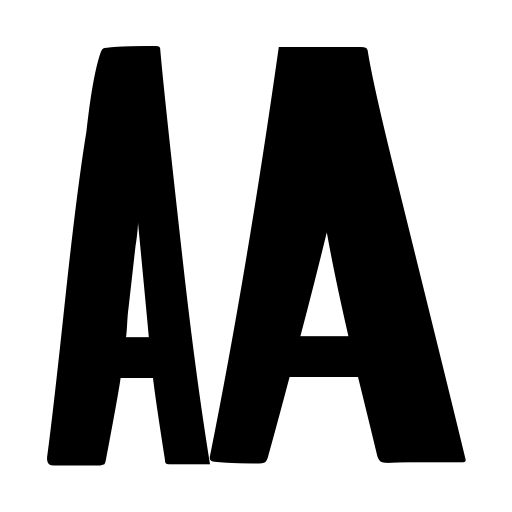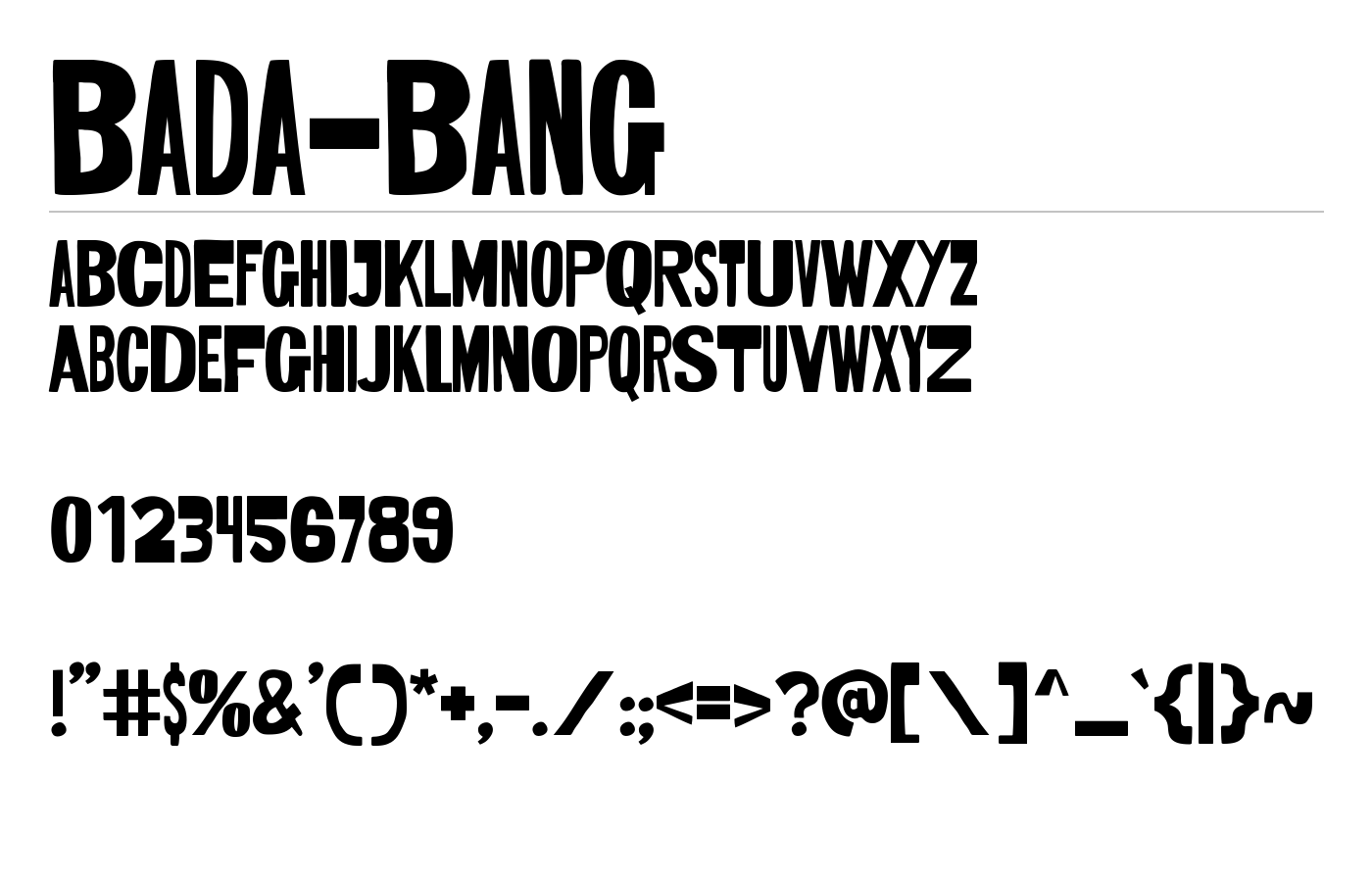
BADA-BANG is a bold, condensed sans serif font with a playful and slightly quirky personality, featuring varying stroke widths and irregular shapes that give it a dynamic, energetic feel. Its tall, tightly spaced letters and distinctive character forms make it perfect for eye-catching headlines, posters, and branding that aims to convey fun and creativity with a strong visual impact. This font works best in designs where boldness and uniqueness are key, such as entertainment or youth-focused projects.
BADA-BANG Font
About BADA-BANG Font